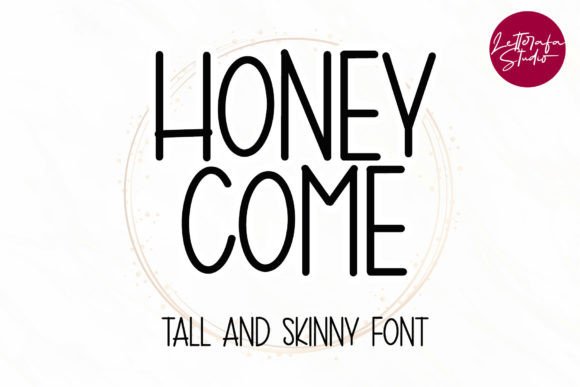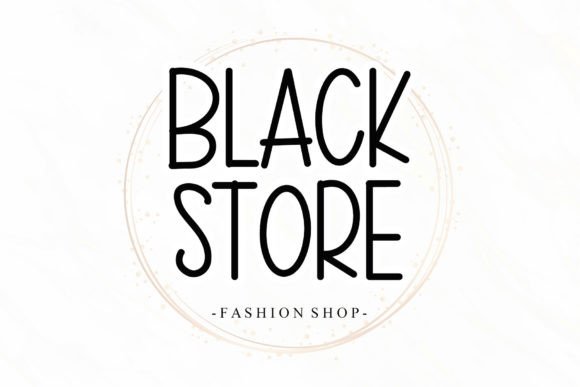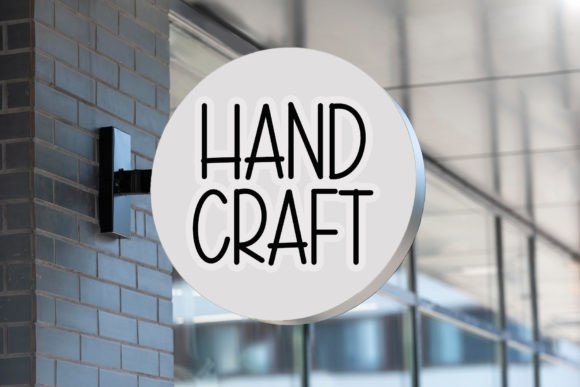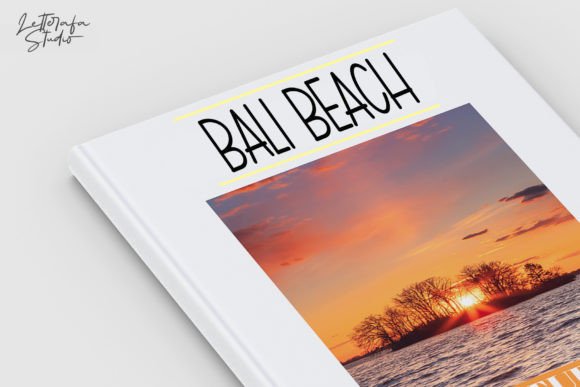
Honeycome Font: A Modern Monoline Font for DIY & Craft Projects
About the Honeycome Font
Crafted with precision, the Honeycome Font is ready to bring your ideas to life. Honeycome is a tall and skinny uppercase monoline font. This font is perfect for logos, greeting cards, package design, brand identity, craft designs, any DIY projects, book titles, wedding invitations, packaging, Christmas projects, and more.
Honeycome’s tall, thin form excels in headlines, short impactful statements, and logos where a strong, graphic presence is desired. It’s ideal for branding projects aiming for a modern, slightly quirky feel, and works well on packaging for artisanal or handcrafted goods. However, its monoline weight and uppercase-only nature make it unsuitable for body text or extended reading. Avoid using it in UI designs or situations requiring high readability at smaller sizes.
Pairing Honeycome effectively requires a contrasting typeface to balance its unique shape. A clean sans-serif like Montserrat or a geometric sans-serif like Futura would provide a strong, modern counterpoint. For a softer contrast, consider a delicate serif like Lato or a script font with a similar level of elegance.
Honeycome projects a bold, modern, and slightly playful personality. It’s best suited for brands that want to convey a sense of confidence and creativity without being overly serious or fussy.
Honeycome Font Example